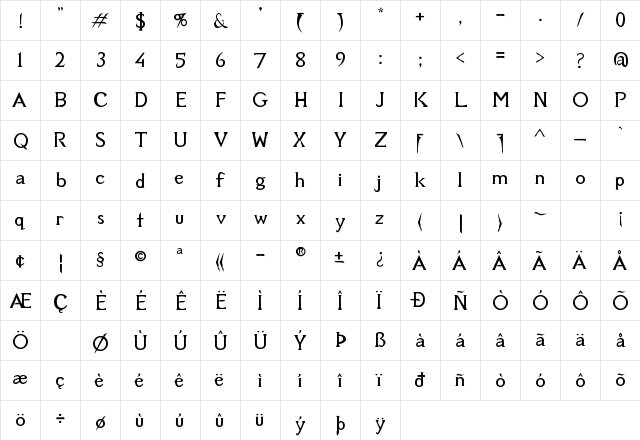
Aetherius Regular
| Foundry | Vasily Draigo aka Daymarius |
| Designer | Vasily Draigo aka Daymarius |
Design Context for Aetherius Typeface
Aetherius is a composed and adaptable typeface that performs quietly and consistently across a wide range of design contexts.